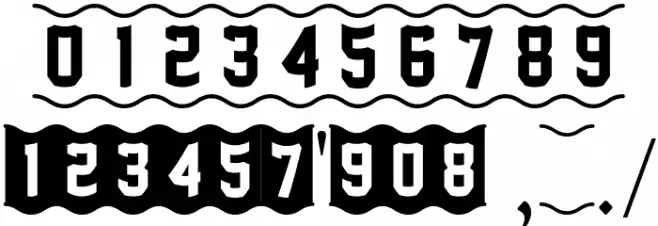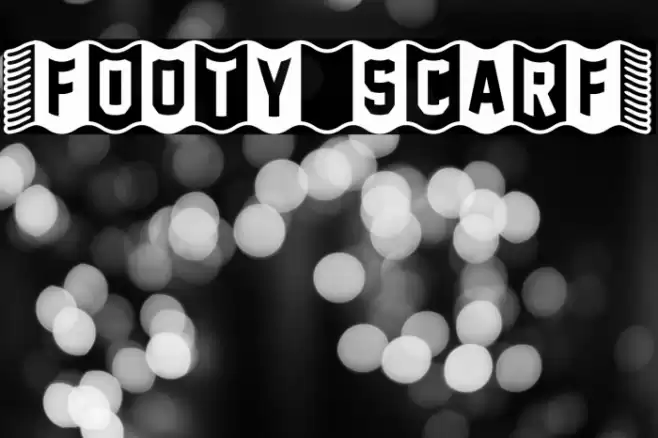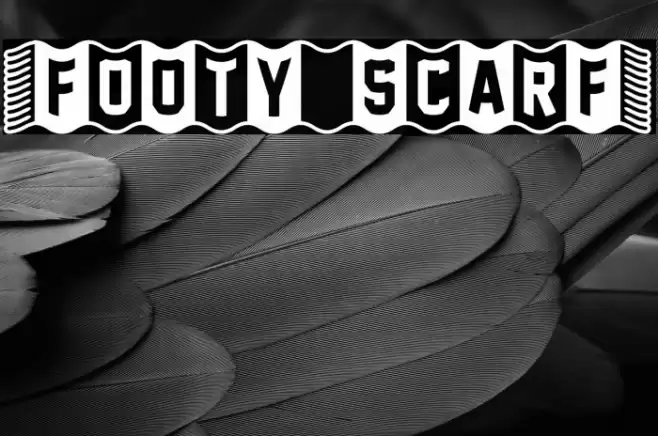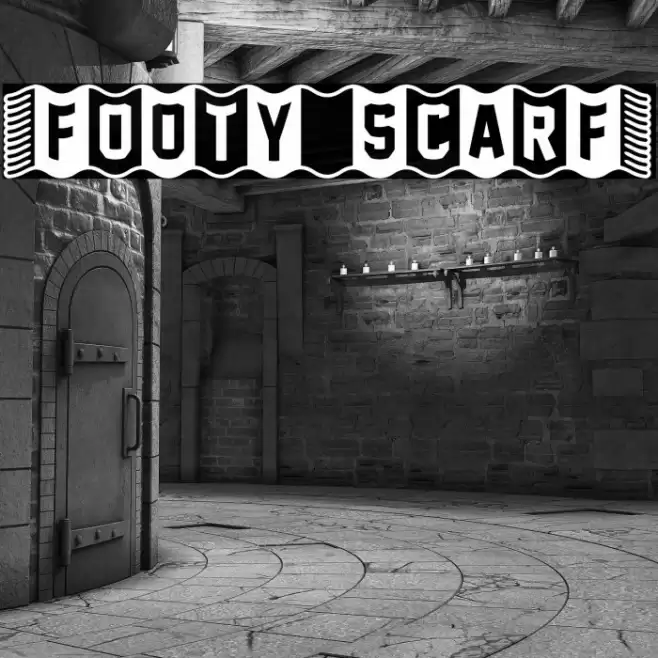
[FoOtY-ScArF] Font
[FoOtY-ScArF] Description
This font features a bold and dynamic design with a strong presence. The uppercase letters are characterized by sharp angles and a slightly condensed form, giving them a modern and edgy look. The lowercase letters maintain the same angular style, ensuring consistency across the typeface. The numbers are equally bold, with a uniform height that aligns with the uppercase letters, making them highly legible. Special characters are designed to match the overall aesthetic, ensuring they integrate seamlessly with the rest of the font. The unique wave-like background adds a playful and distinctive touch, making this font ideal for eye-catching designs.
A bold, angular font with a modern, edgy style and a playful wave-like background from Decorative fonts.
- Proposed Projects: Perfect for sports branding, posters, and merchandise that require a bold and dynamic look.